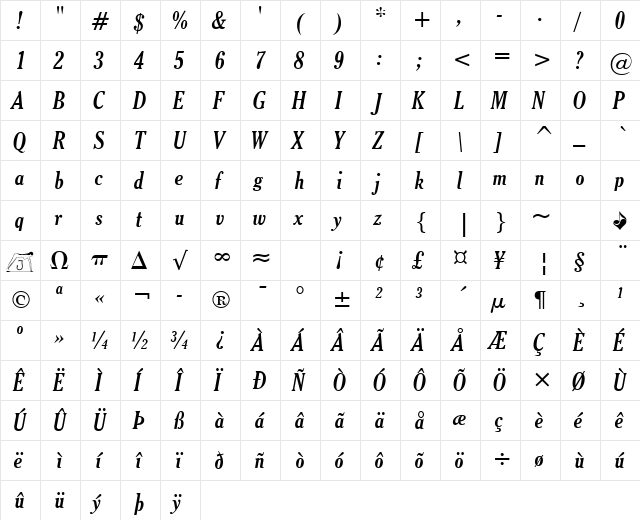
Thyssen J Italic
Design Context for Thyssen J Typeface
Thyssen J is a composed and adaptable typeface that performs quietly and consistently across a wide range of design contexts. The dynamic lean of this cut emphasises speed and emphasis in any layout.
Pro Tip: Use Thyssen J for emphasis, pull quotes, and subheadings where its slanted energy can add rhythm to the layout.